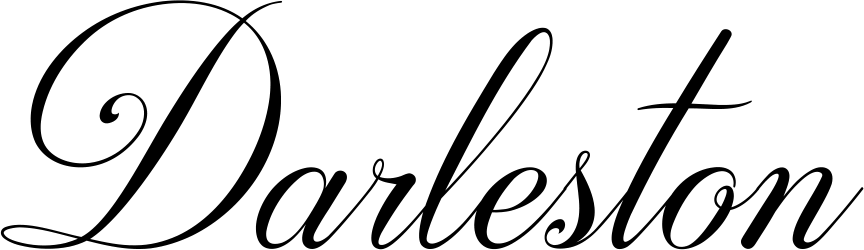
Darleston Font
For designs that demand a fancy and flirty cursive font, we recommend Darleston. It sports an authentic calligraphy style with thick and thin lines. The curls and swashes of this font will be an impressive addition to your business cards, invitations, logotypes, watermarks, etc.